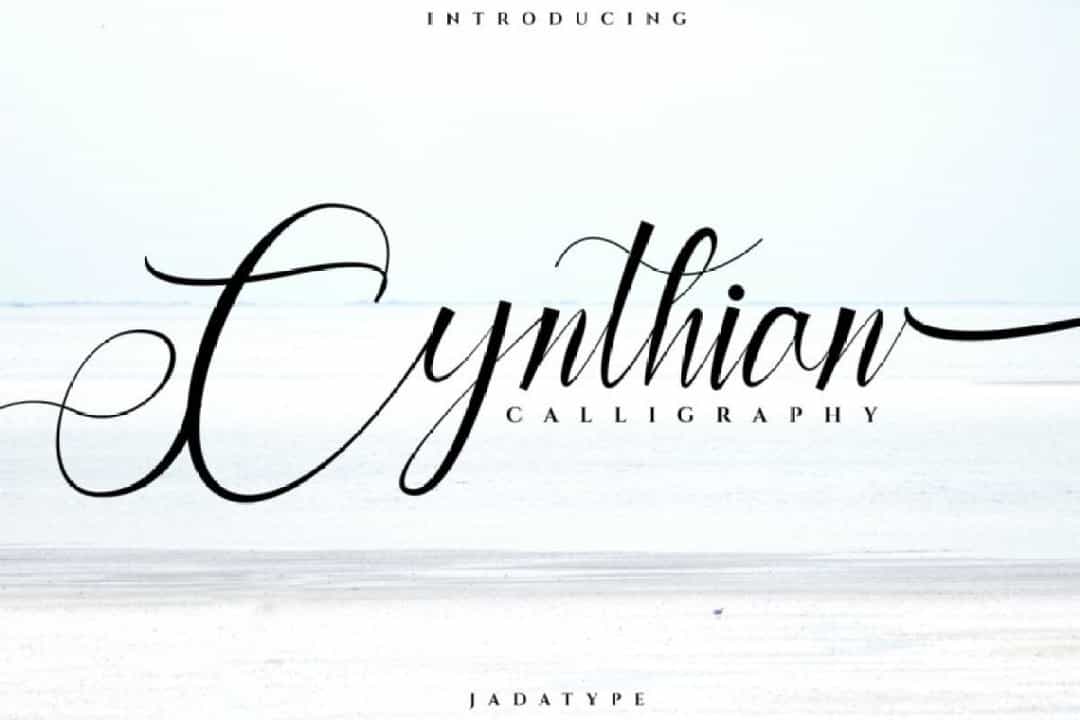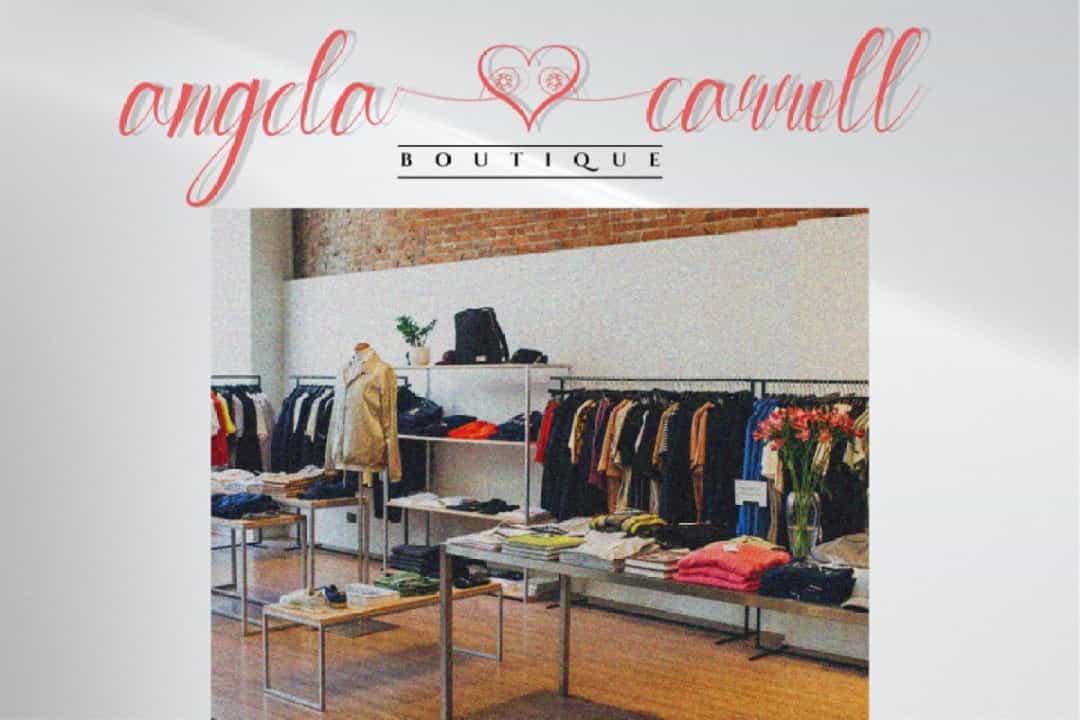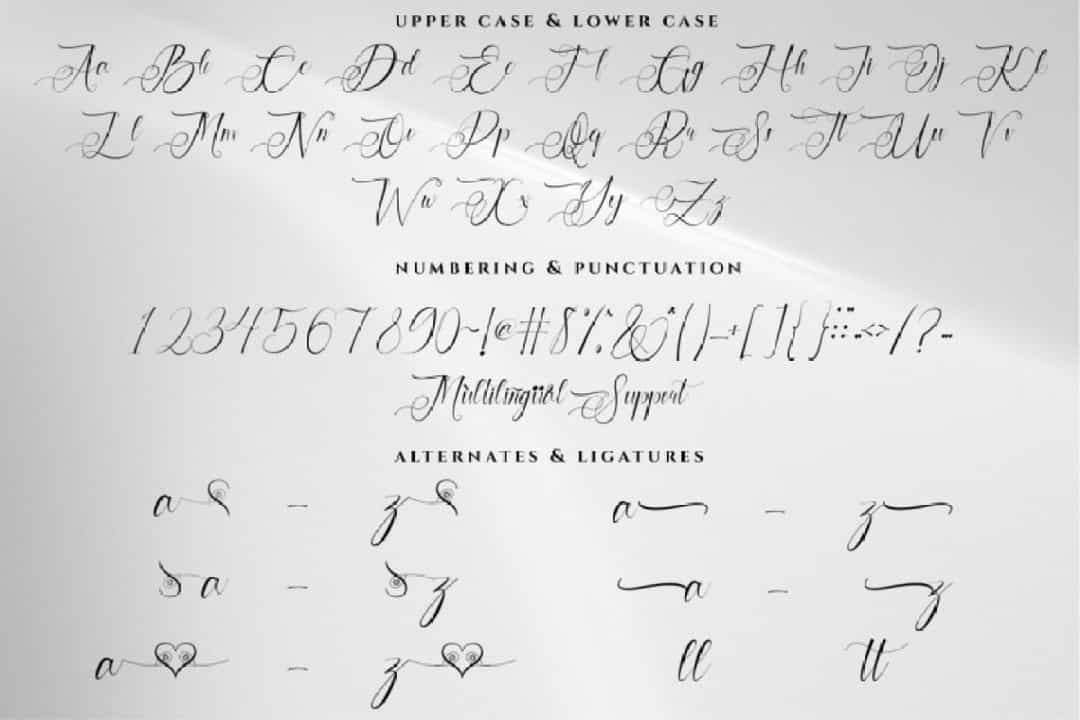
Cynthian is a beautiful calligraphy font that has PUA encoded support which means you can easily access the swashes, glyphs, and characters of the font. It remains and looks calligraphic, yet it is contemporary and minimalistic – let yourself be drowned in the font and level up your designs!